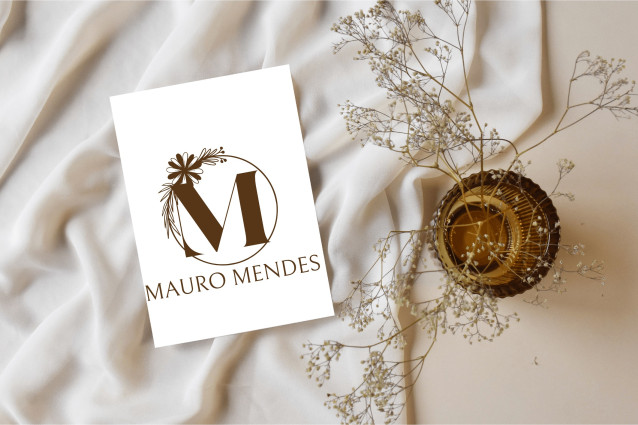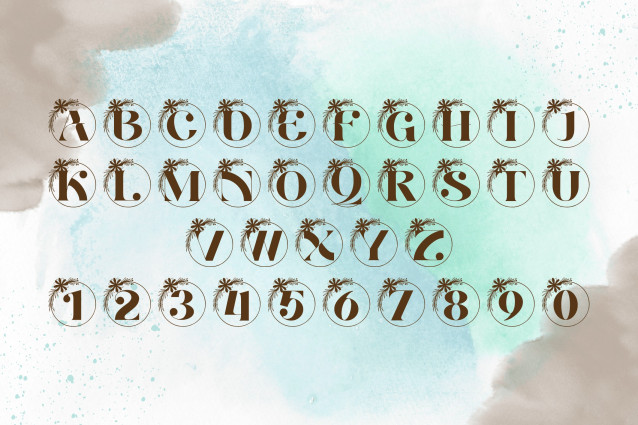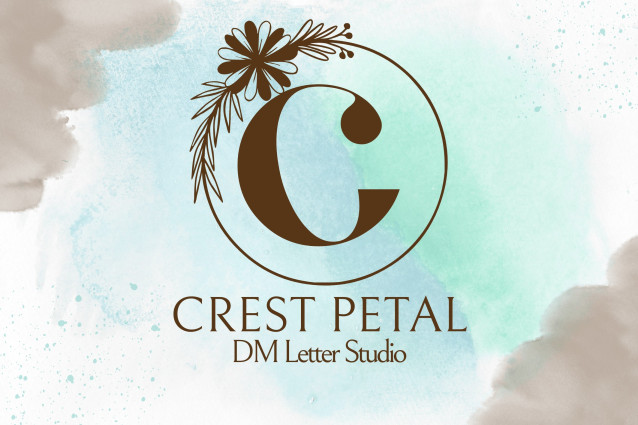
Crest Petal Monogram Font
Crest Petal Monogram is a romantic and ornate serif font designed to mimic the charm of classic monogram crests with a floral twist. Each uppercase letter is gracefully adorned with petal-like botanical elements, creating a refined and timeless look. Ideal for wedding stationery, luxury branding, custom signage, and heirloom-quality gifts, this font elevates monograms into elegant statements of style.